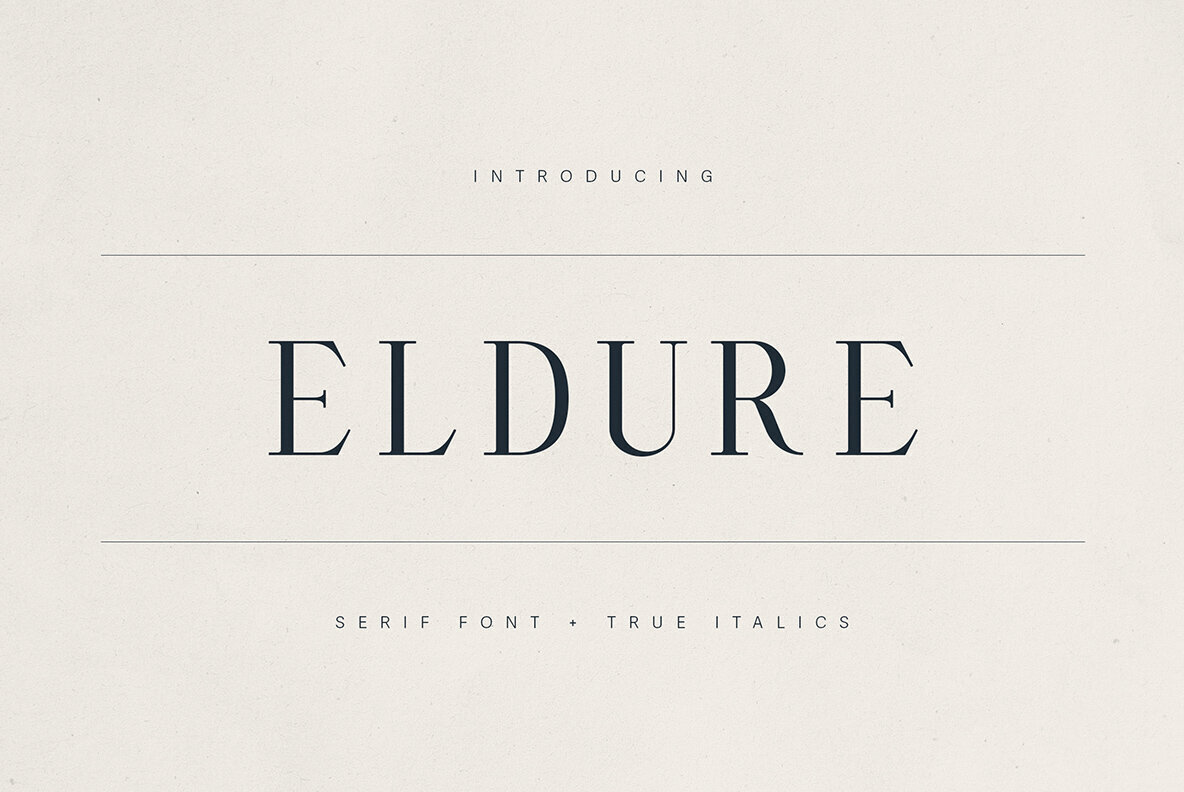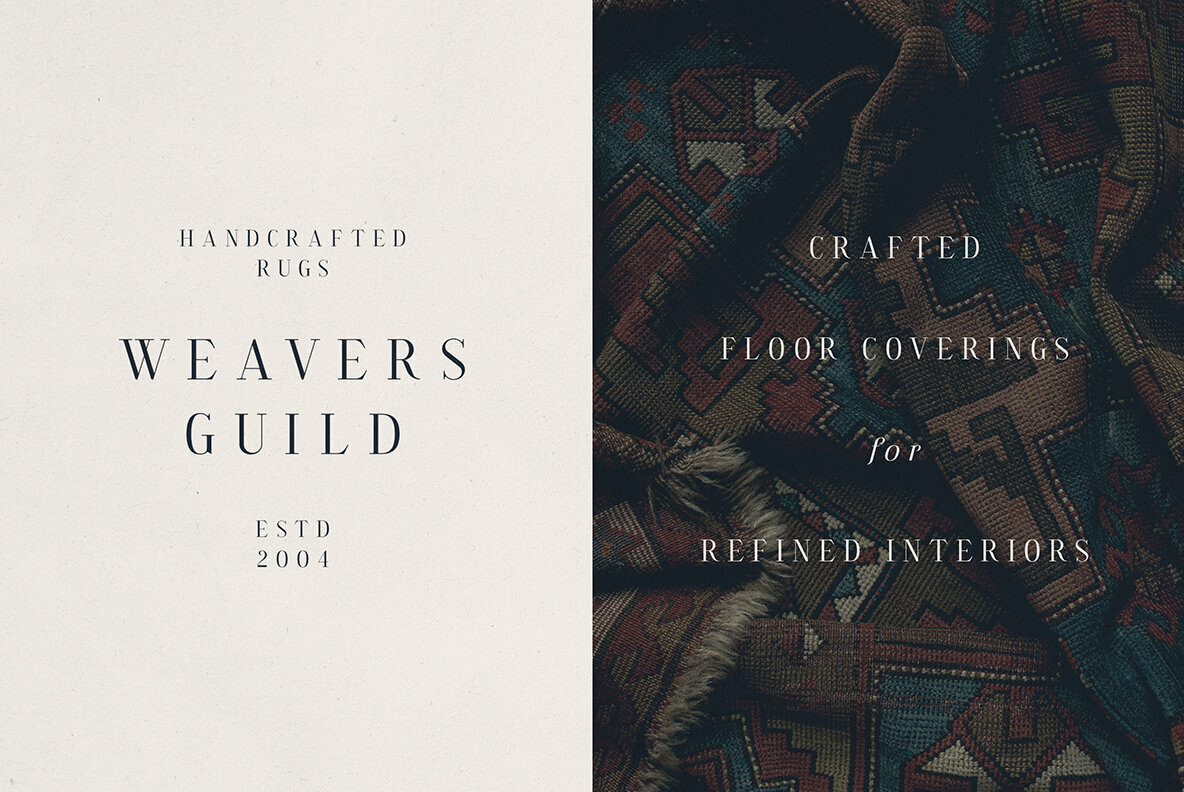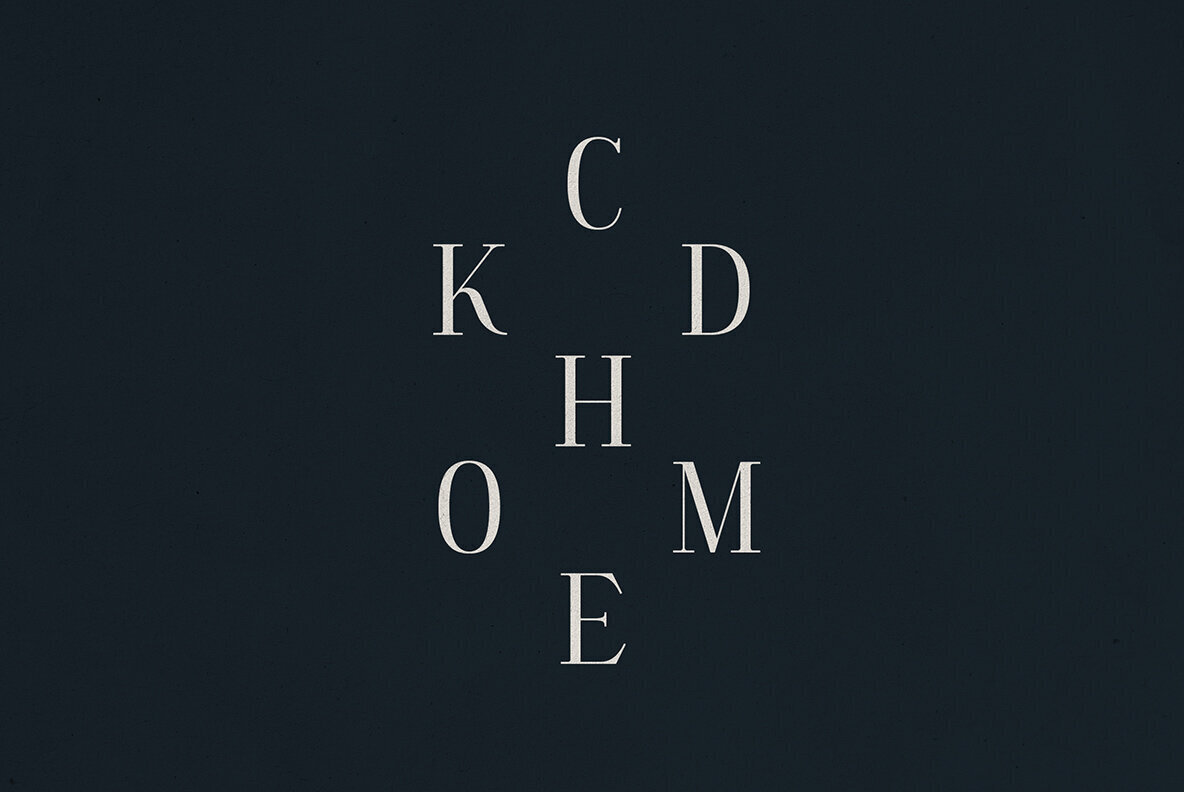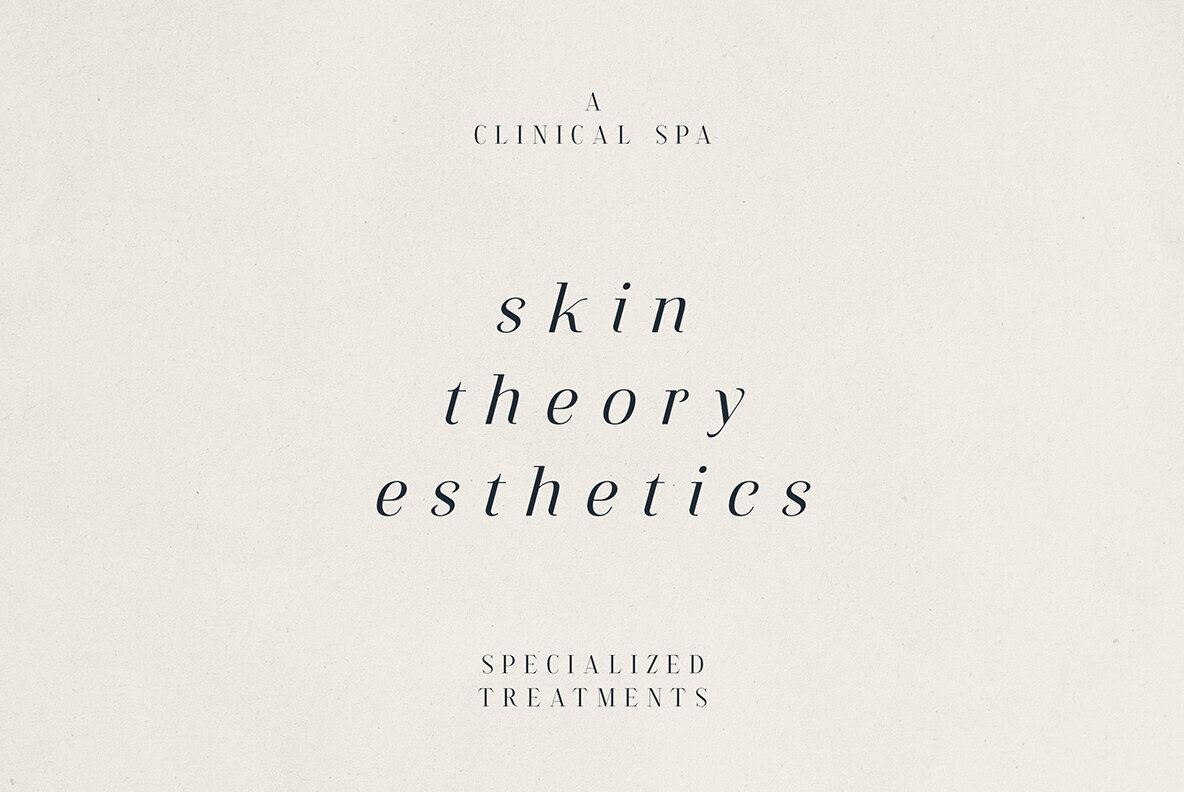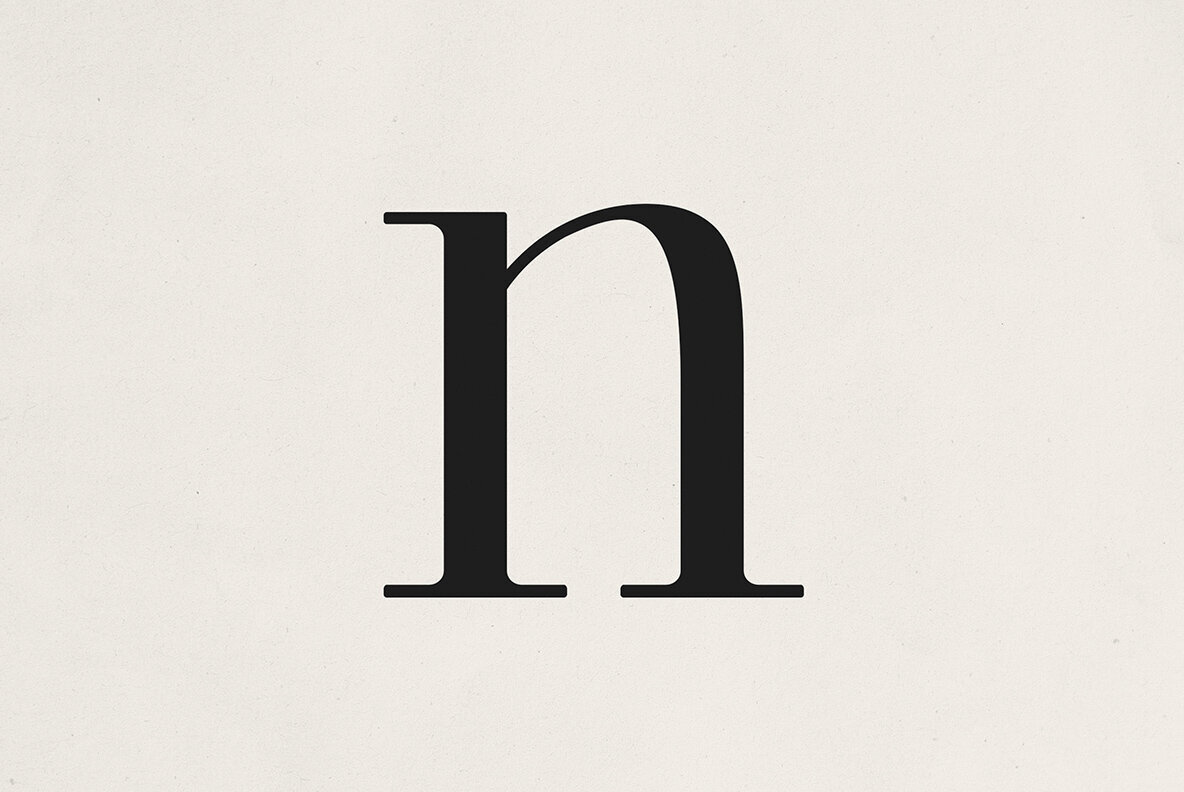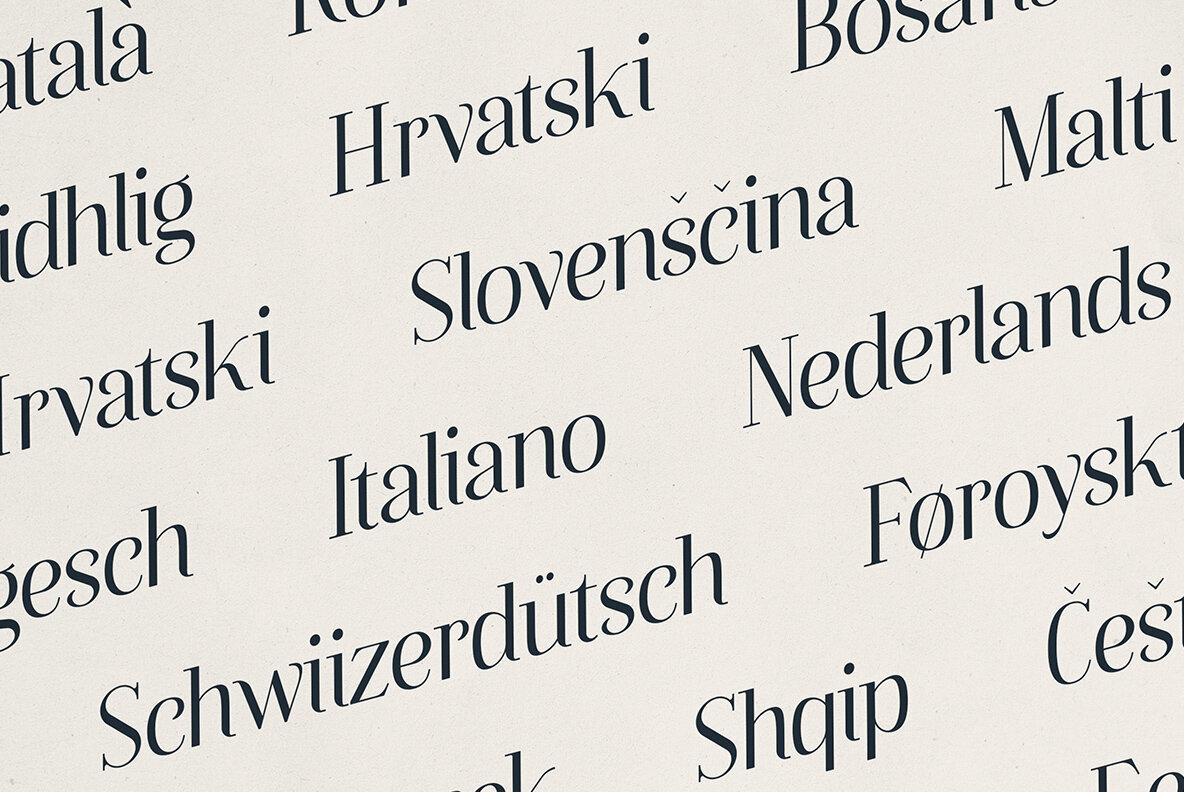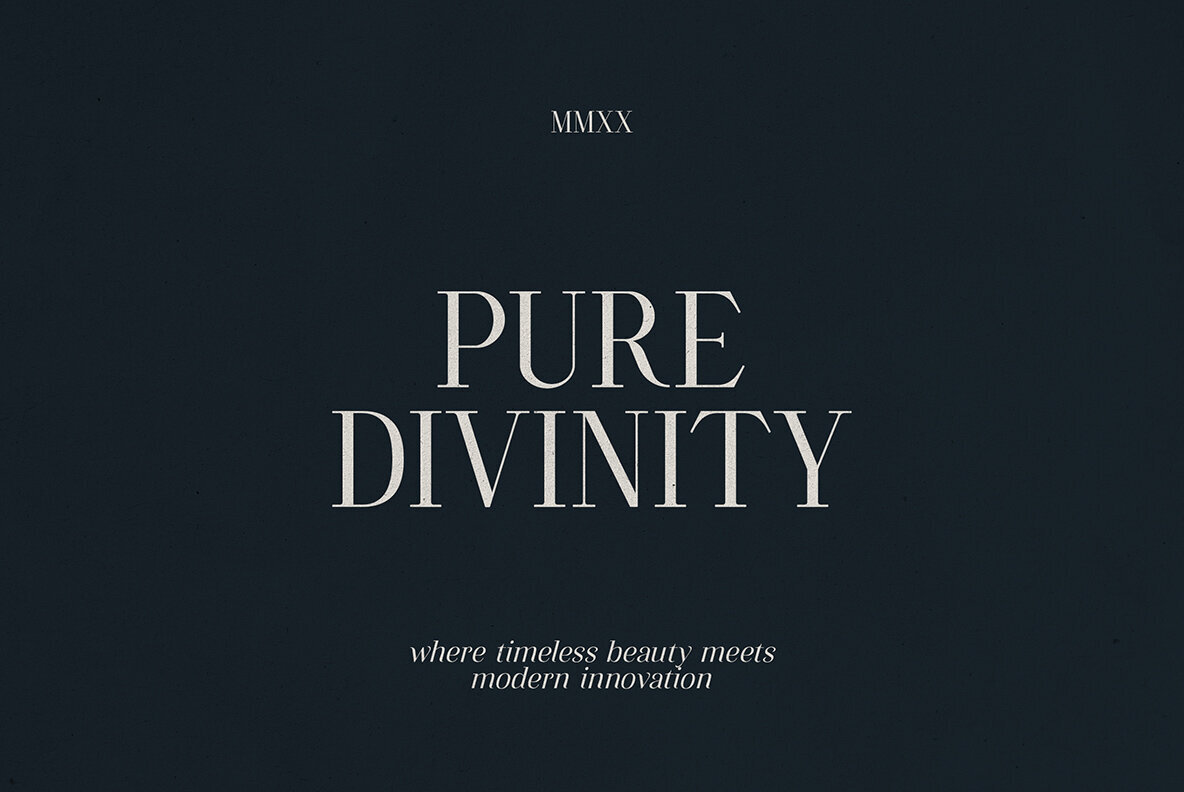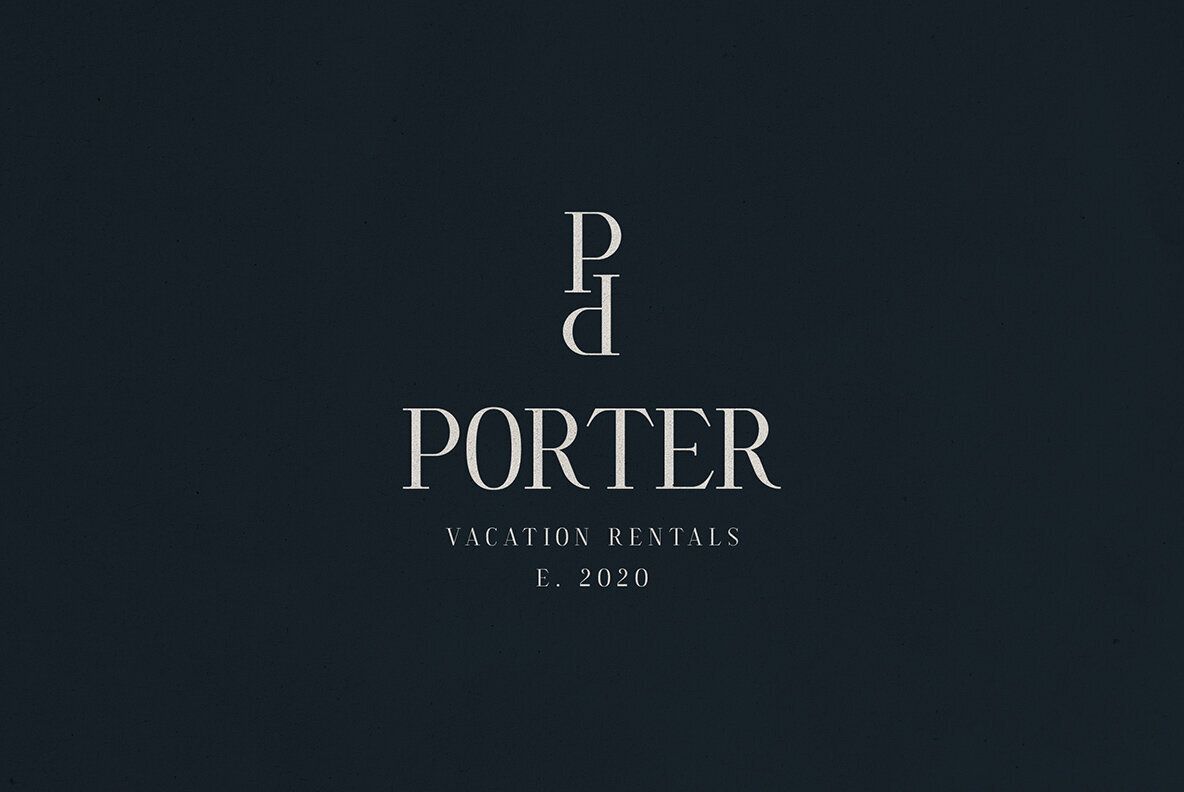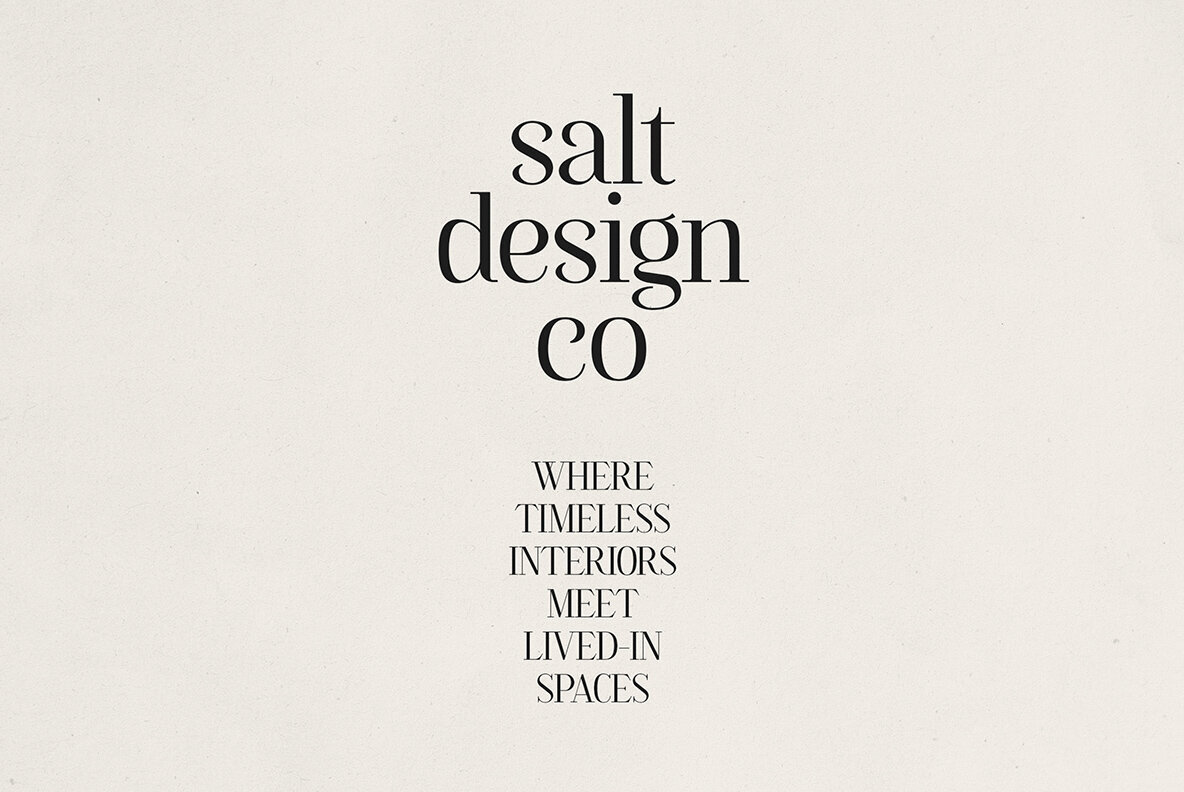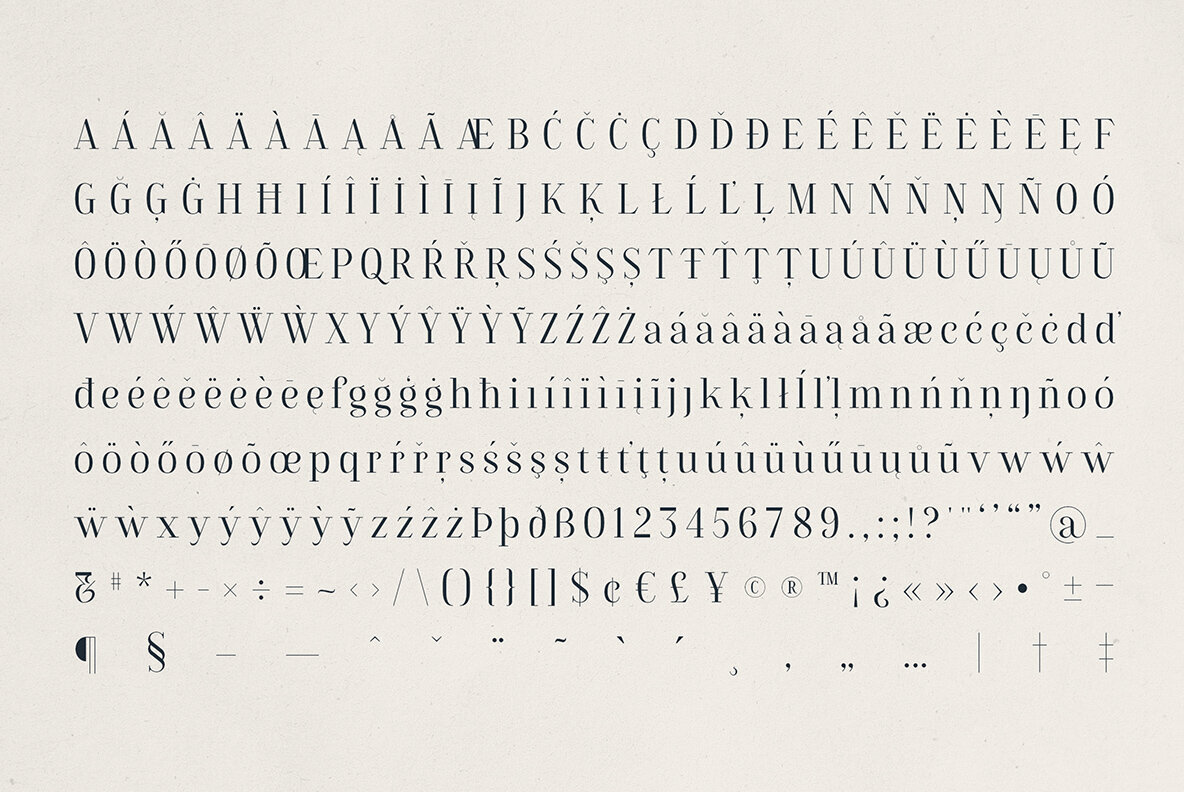
Eldure Font
Eldure Regular
Eldure Italic
Discover Eldure, an exquisite serif typeface that embodies elegance and everlasting appeal. With its perfectly crafted true italics and high contrast strokes, Eldure adds sophistication to any editorial layout or luxury design. It's the ideal choice for branding, luxury packaging, lifestyle magazines, weddings, and upscale projects. Incorporating classic editorial typography with a touch of modern elegance, Eldure features balanced proportions and nuanced serifs to enhance both headlines and body copy. Its traditional Roman structure is combined with contemporary flair, creating a graceful aesthetic that enhances any design. Eldure is the perfect ally for creating a boutique brand identity, a curated publication, or an elegant heritage product line. Combining beauty with precision, it supports an extensive array of languages, making it versatile for diverse global audiences.Eldure – Timeless Serif Font